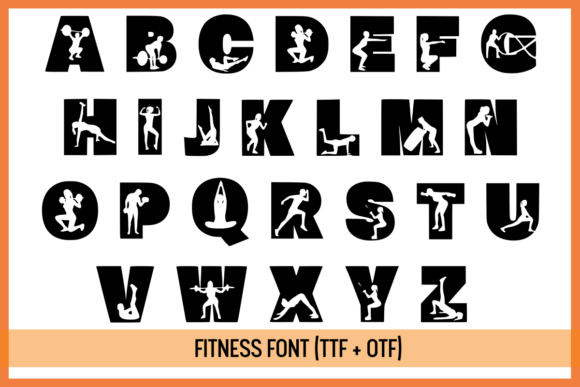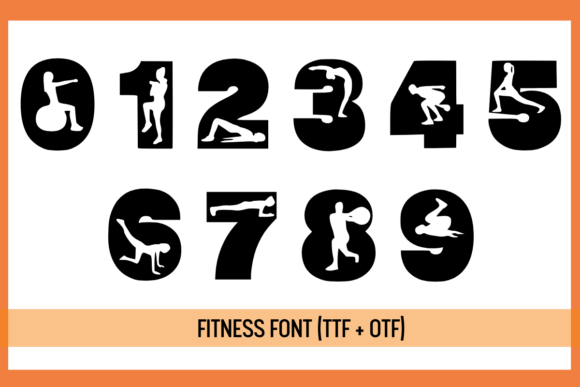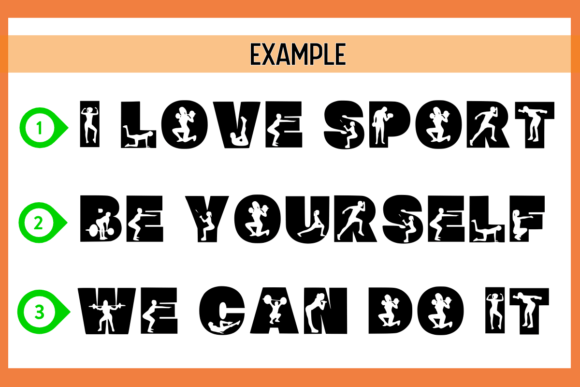
Introduction to Fitness Font
Fitness is a sweet and cute decorative font.
Add it to your creative ideas and you will love the results .
Key Features of Fitness Font
Why Choose Fitness Font?